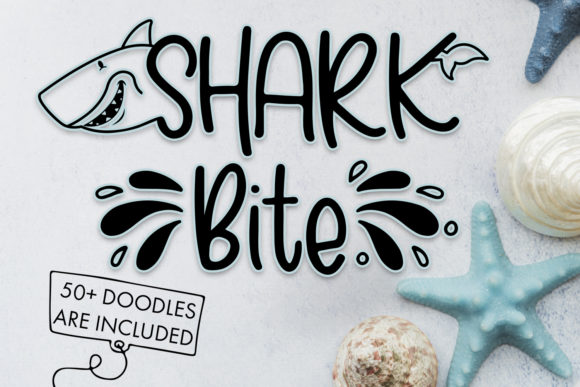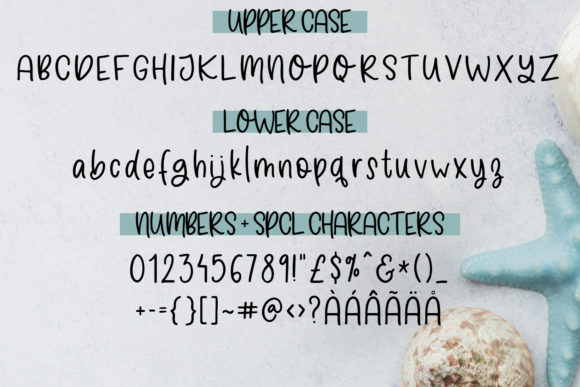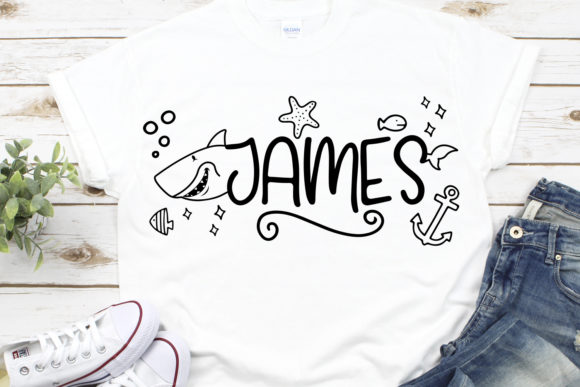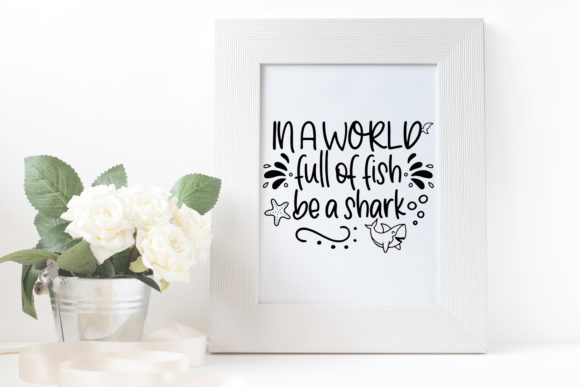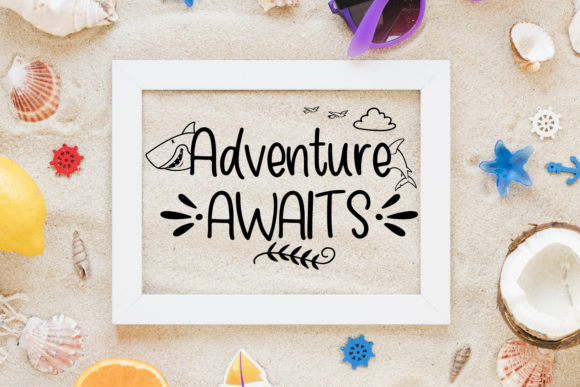
Watch out, shark lovers! Shark Bite is a nautical-themed display font with a splash of personality! Use it for any underwater-themed project, and get creative with the included doodle-font!